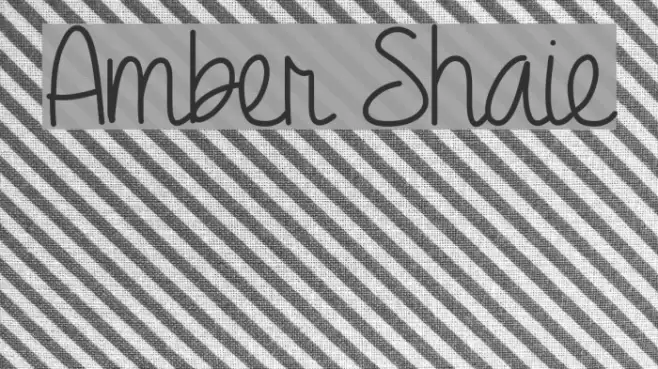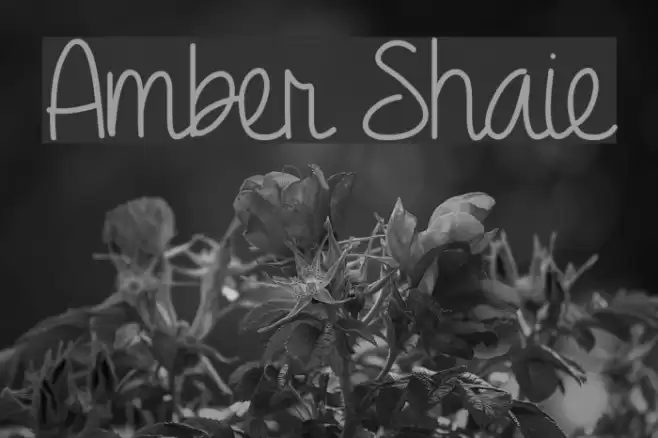
Amber Shaie Font
Amber Shaie Description
This font exhibits a playful and casual handwritten style, characterized by its smooth, flowing curves and slightly irregular letterforms. The uppercase and lowercase letters maintain a consistent height, contributing to a uniform appearance. The strokes are moderately thick, providing a clear and legible text even at smaller sizes. The numerals and special characters are designed to match the overall aesthetic, with a whimsical touch that enhances the font's friendly and approachable feel. This font is versatile, suitable for both digital and print media, and can add a personal touch to any project.
A playful, handwritten font with smooth curves and a casual style from Uncategorized fonts.
- Proposed Projects: Ideal for greeting cards, invitations, personal blogs, and creative branding projects.
- Overall Style: Casual
- Use Case: Headlines, Logos, Invitations